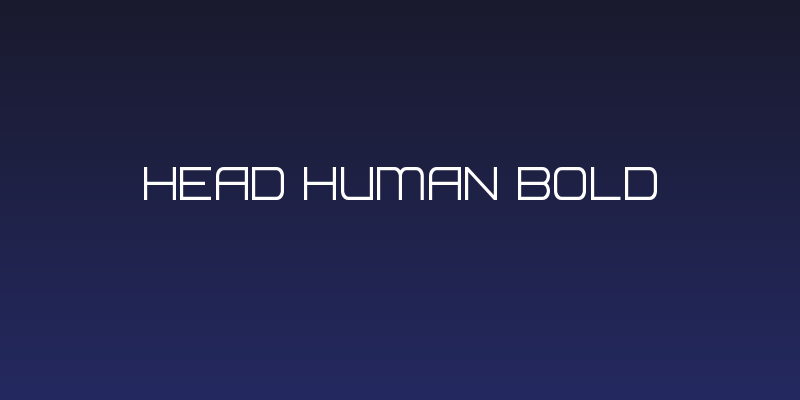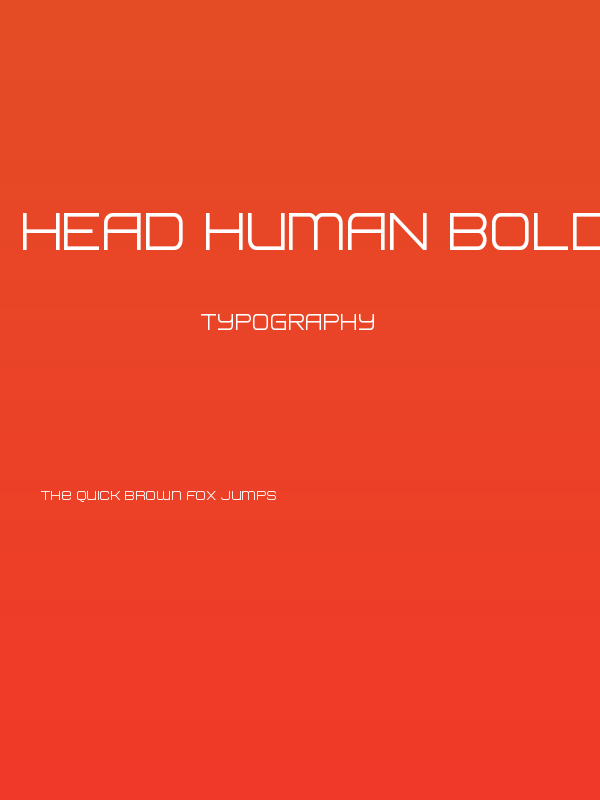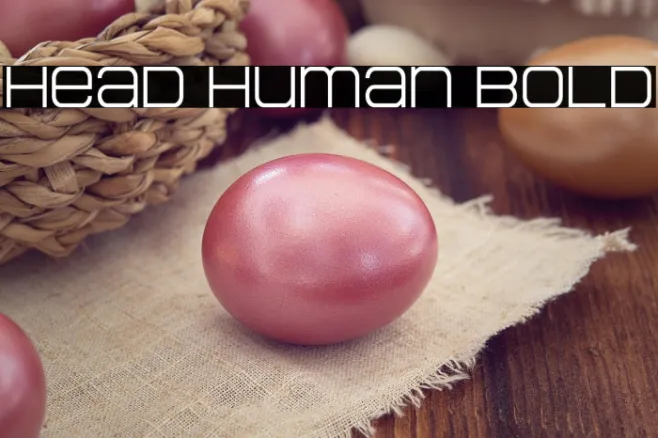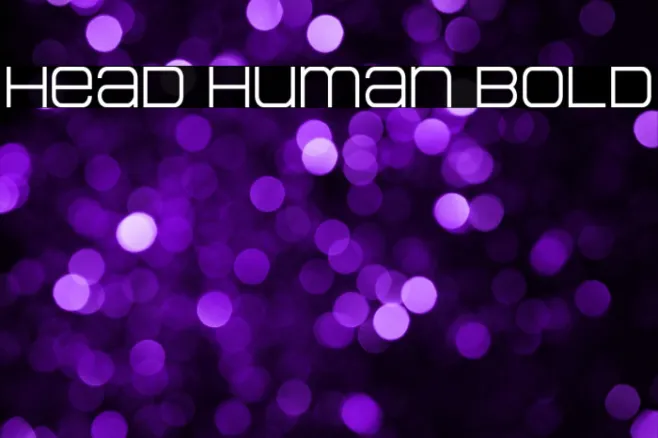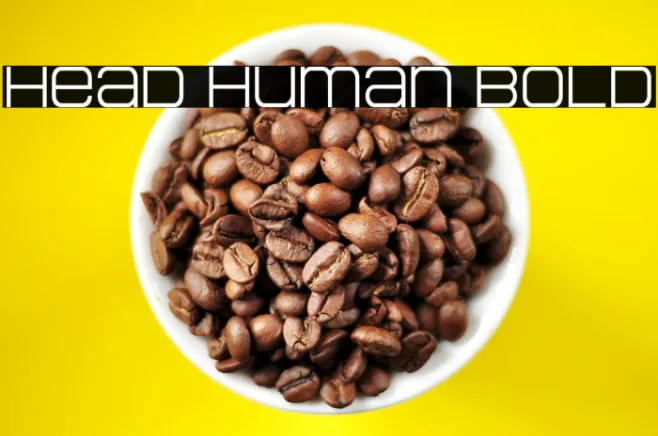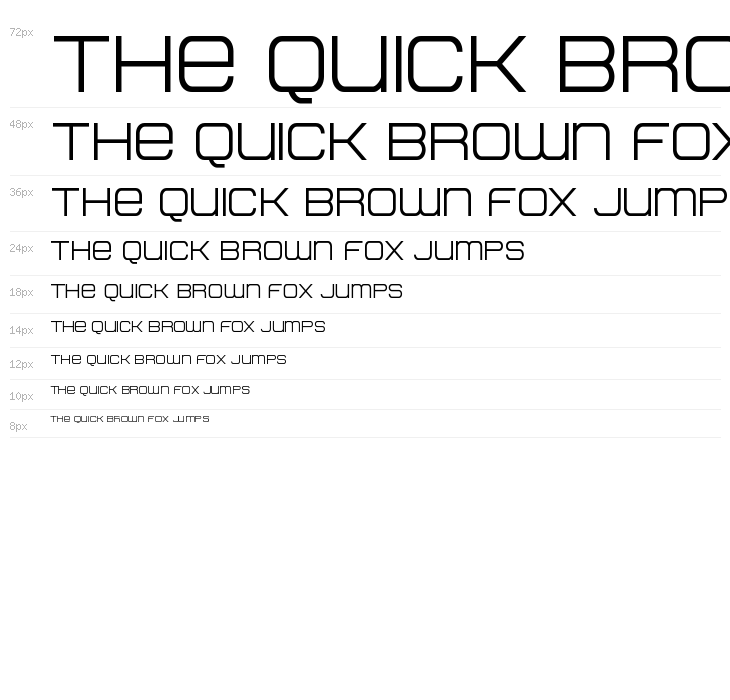
Head Human Bold Font
Head Human Bold Description
This font features a modern, geometric design with clean, straight lines and rounded edges, creating a futuristic and technical appearance. The characters are uniform in height and width, providing a balanced and consistent look. The uppercase and lowercase letters maintain a similar structure, enhancing readability while retaining a unique style. The numerals and special characters follow the same design principles, ensuring a cohesive appearance across all elements. This font is ideal for projects that require a sleek, contemporary aesthetic.
| Use Case | Headlines, Logos, Digital interfaces |
| Proposed Projects | Ideal for technology branding, digital interfaces, modern advertising, and sci-fi themed projects. |